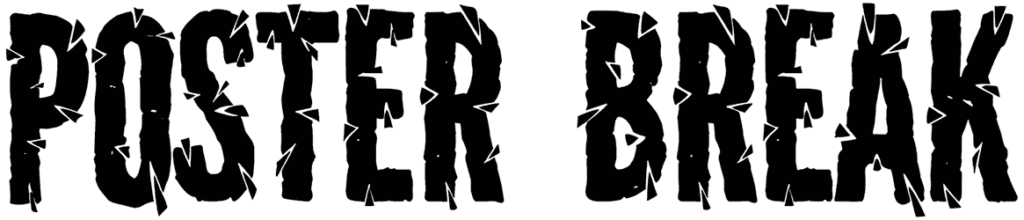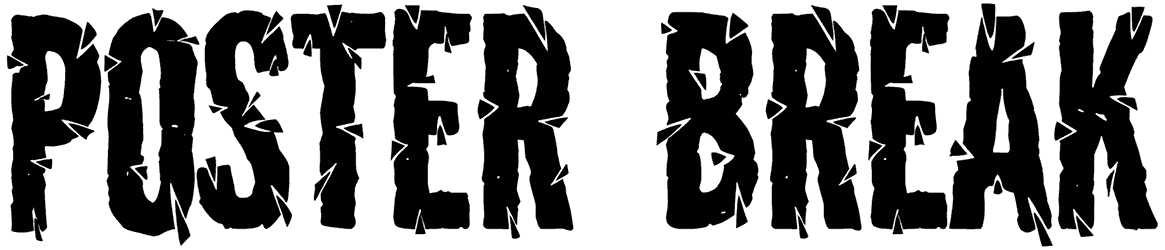
Poster Break Font
Chance comes to those who dare to try a destroy font such as Poster Break in their graphic content, like stickers, editorial projects, wood engravings, or social media posts. Aside from the lack of lowercase letters, this masterpiece comes in a scratched form and grabs the attention of the audience by conveying a feeling of grunge, smudgy, tenderness, or fierceness.